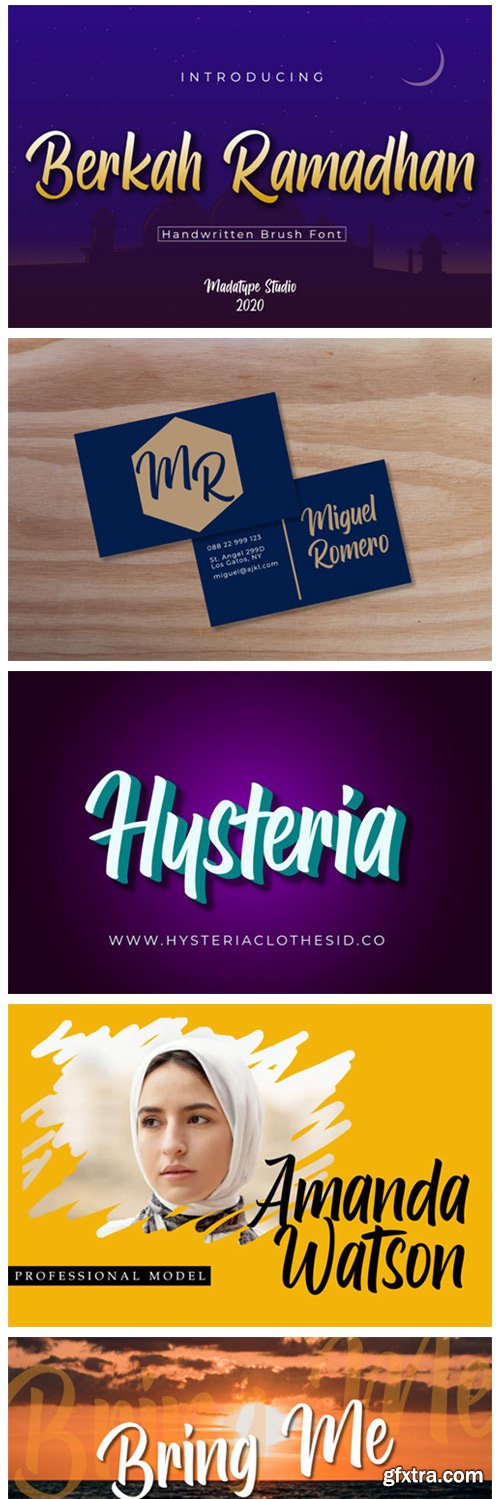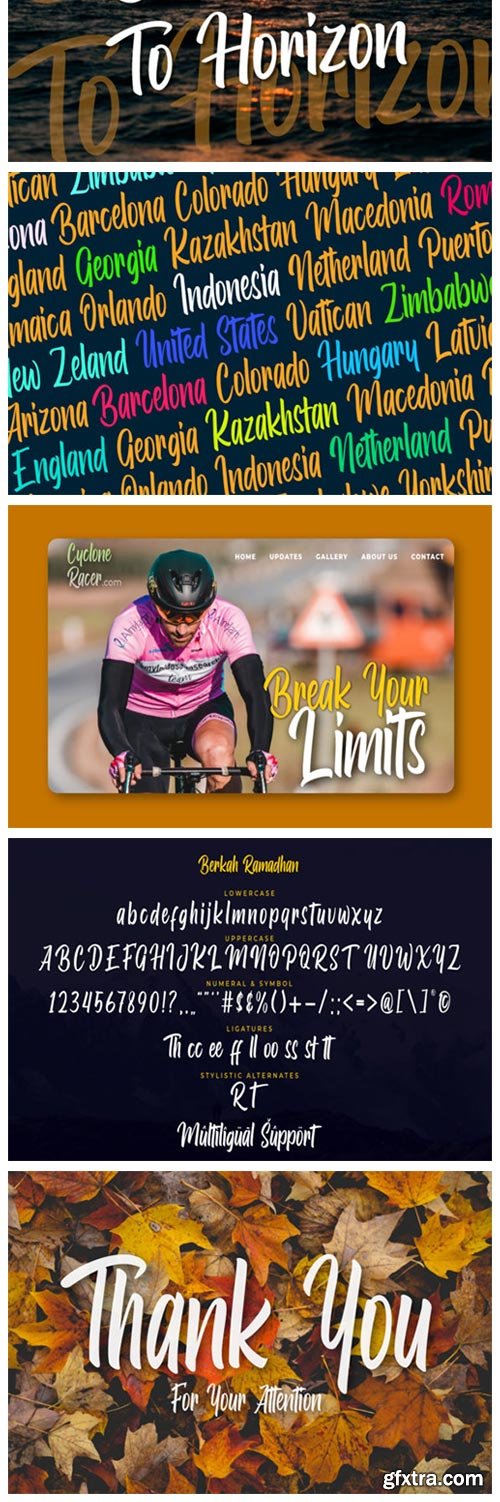
Berkah Ramadhan Font
Berkah Ramadhan is a handwritten font with an authentic feel. It is perfect for logos, branding, product packaging, and much more!